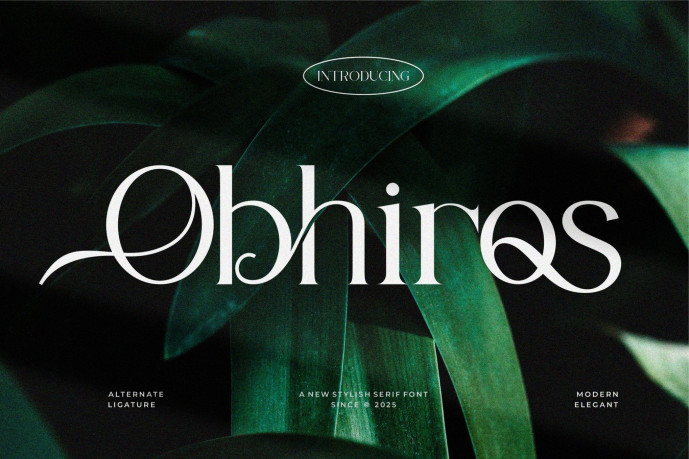
Obhiros Modern Serif Font
Obhiros Modern Serif Font type for all branding and logo designs. This modern and classy Serif font has a beautiful character. This font is suitable for invitation card designs, cool logos, movie titles, movie names, business cards, book titles, brand names, and various other designs. Obhiros Serif is a smooth serif font that exudes sophistication and the moment. Its stylish ligatures make this font a perfect partner for any project.
• Ligature
• Uppercase and lowercase
• Numbering and Punctuation